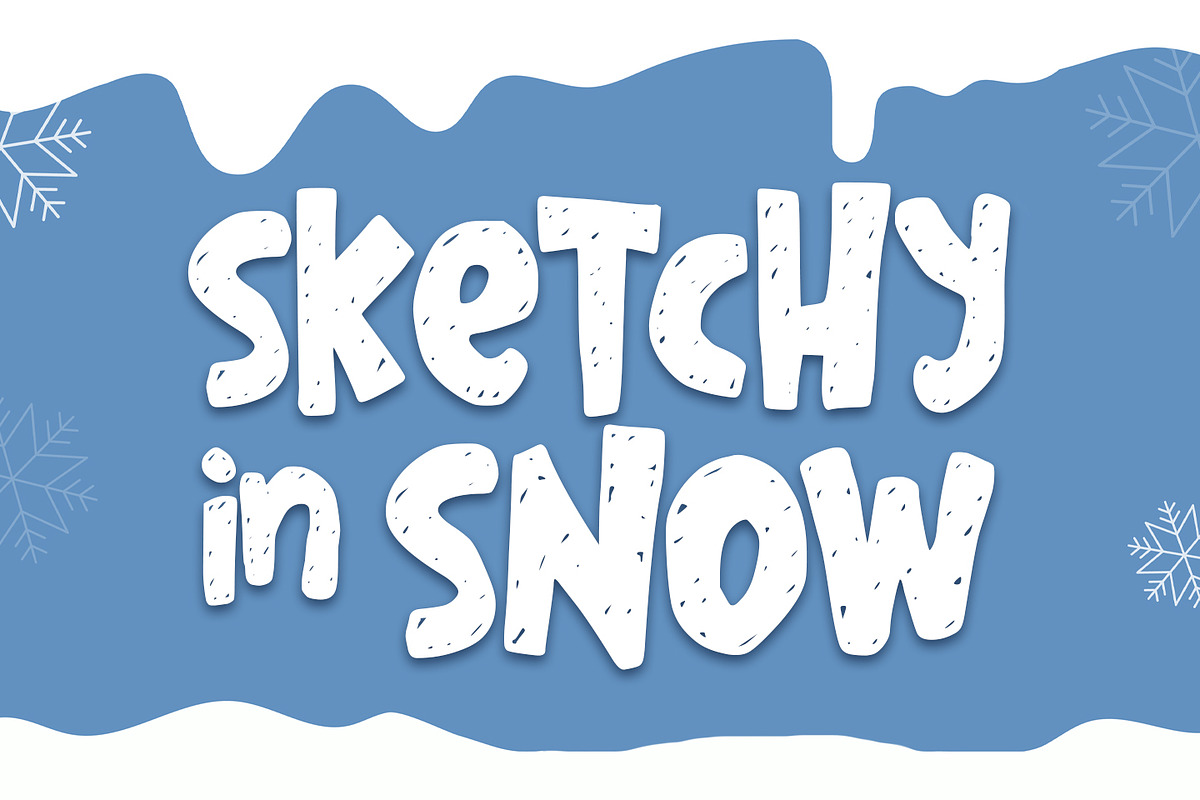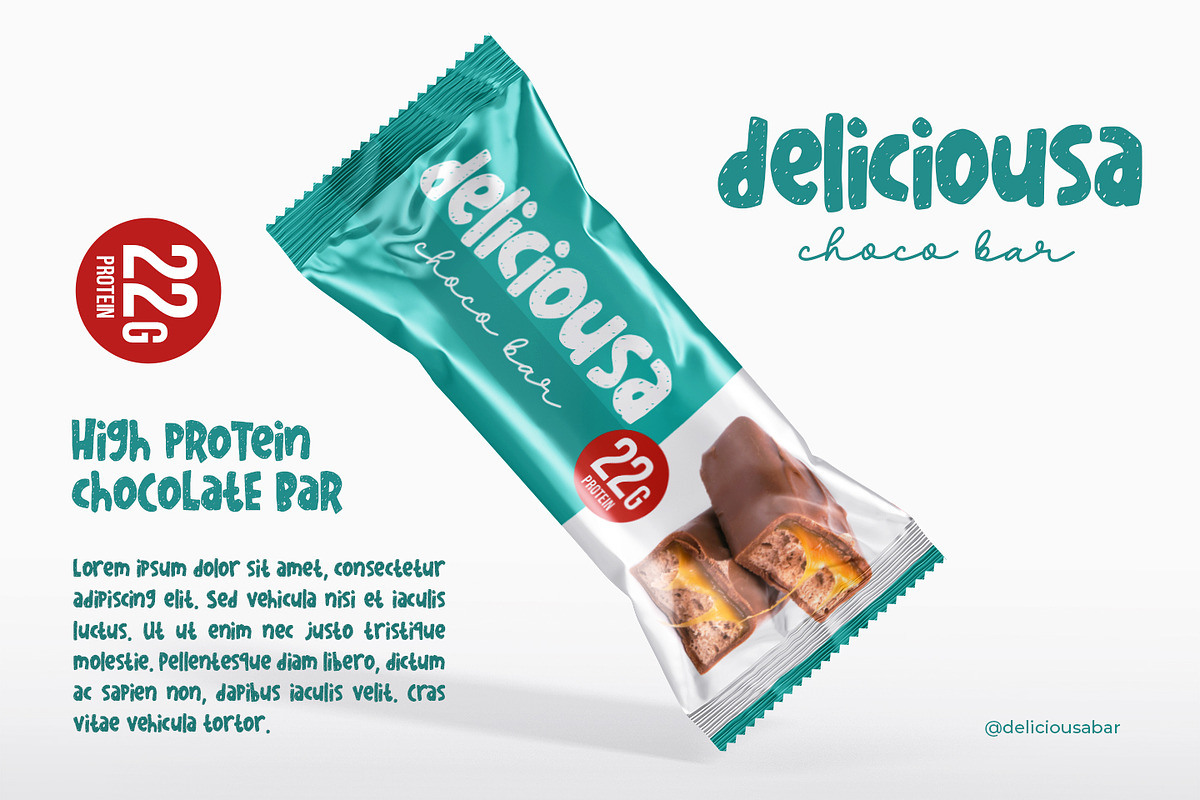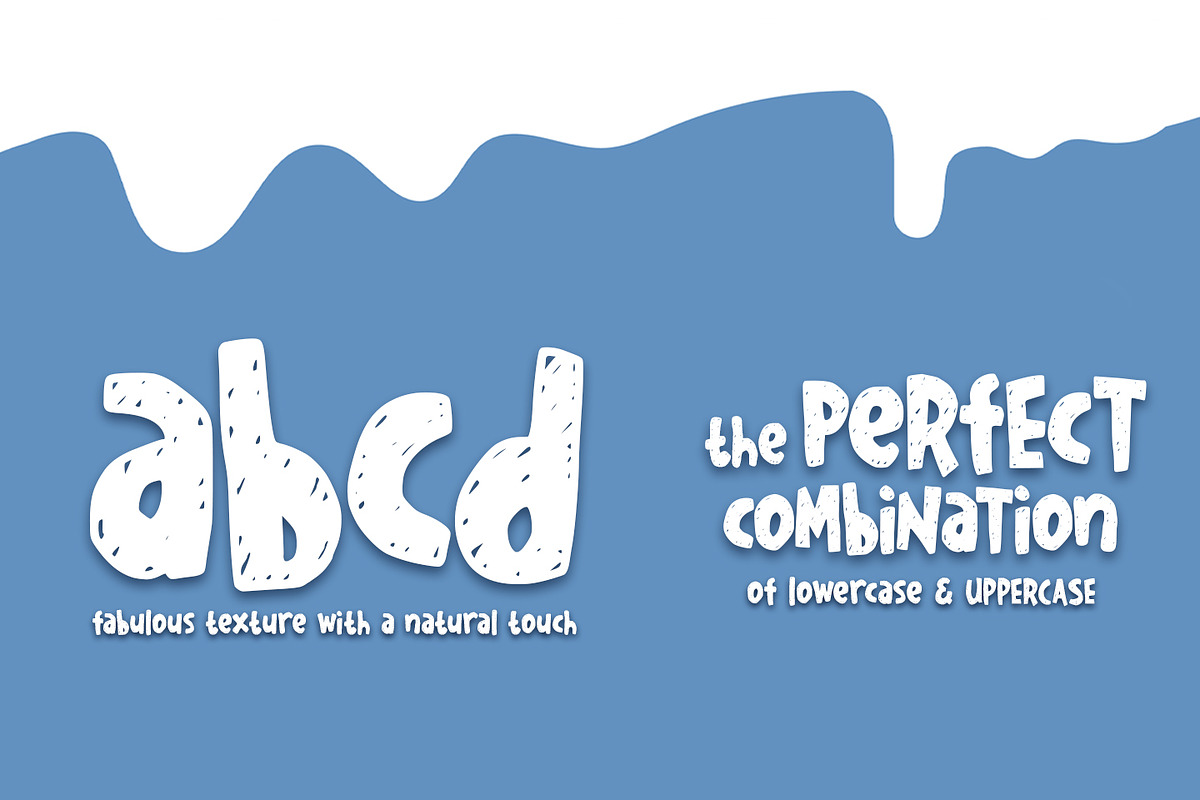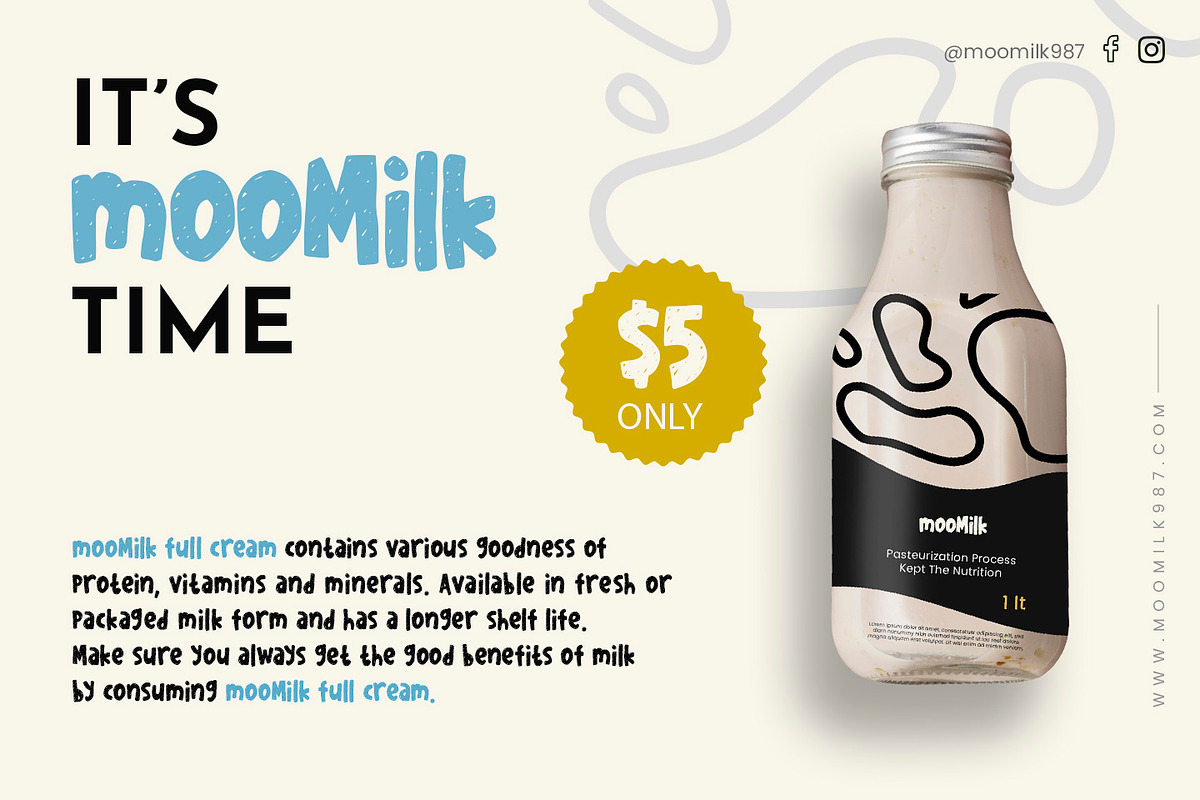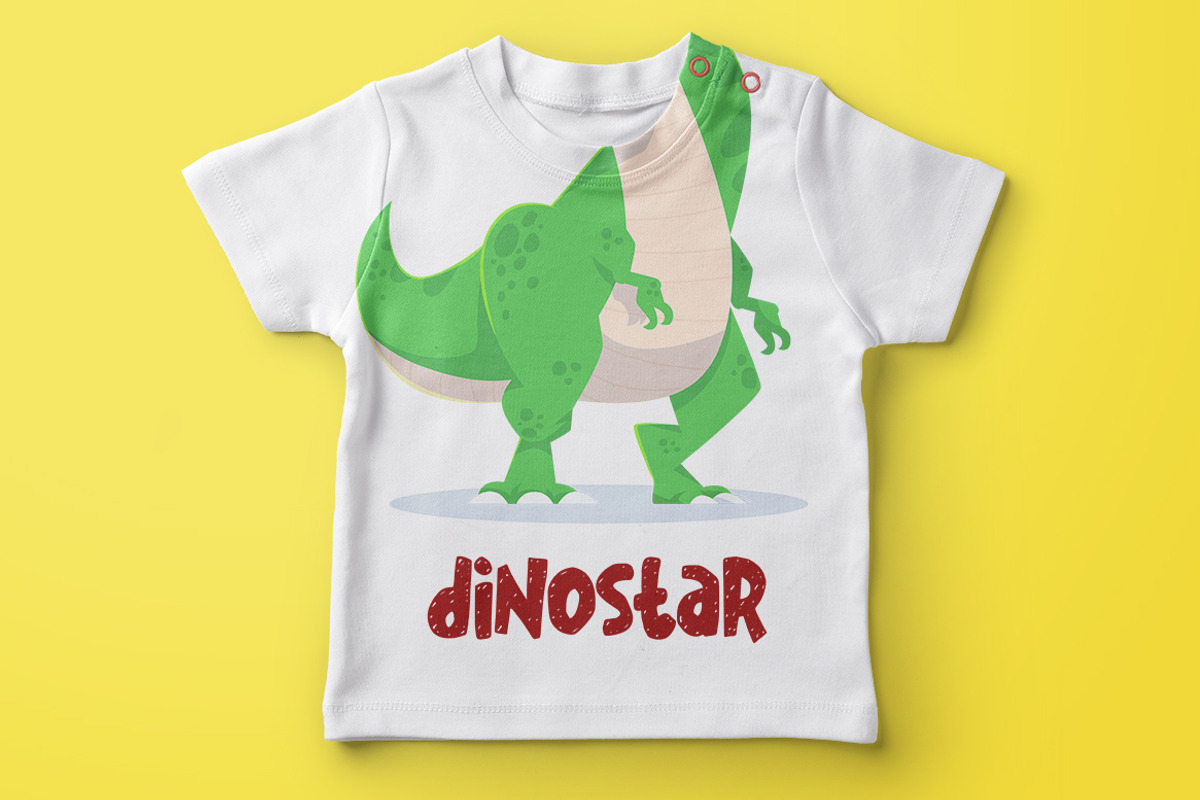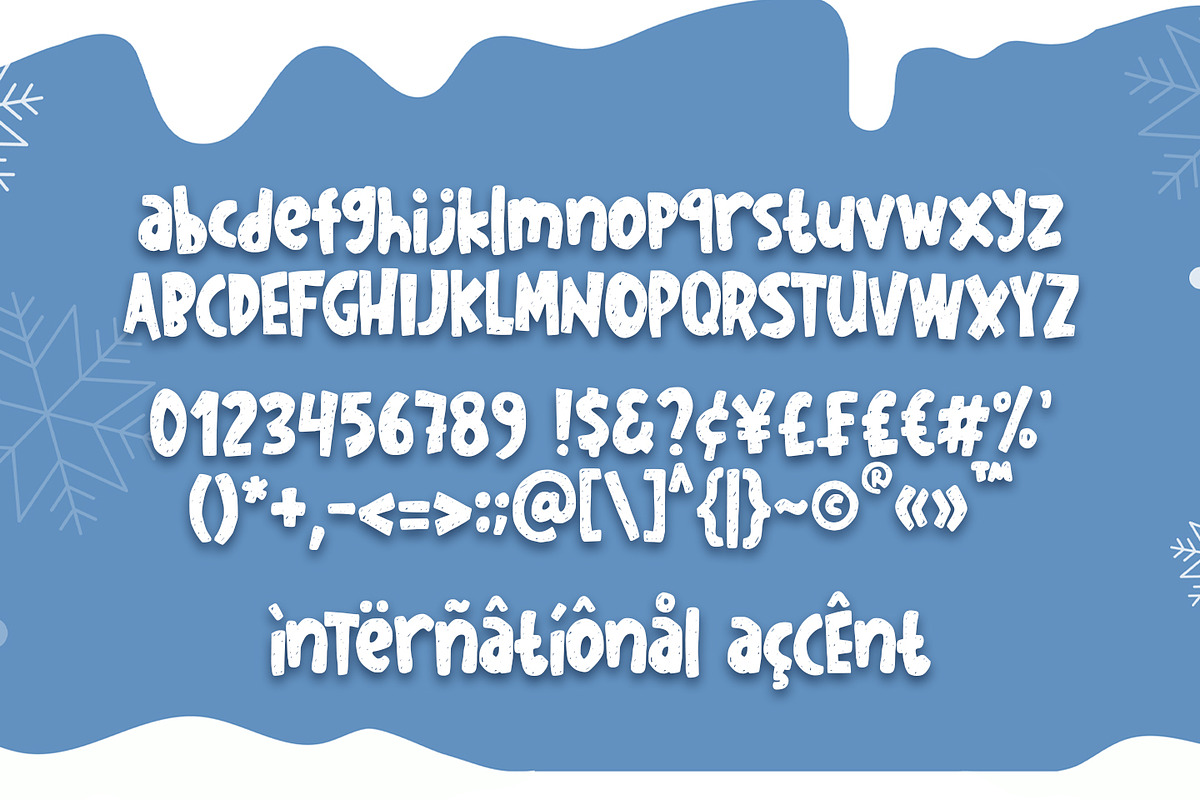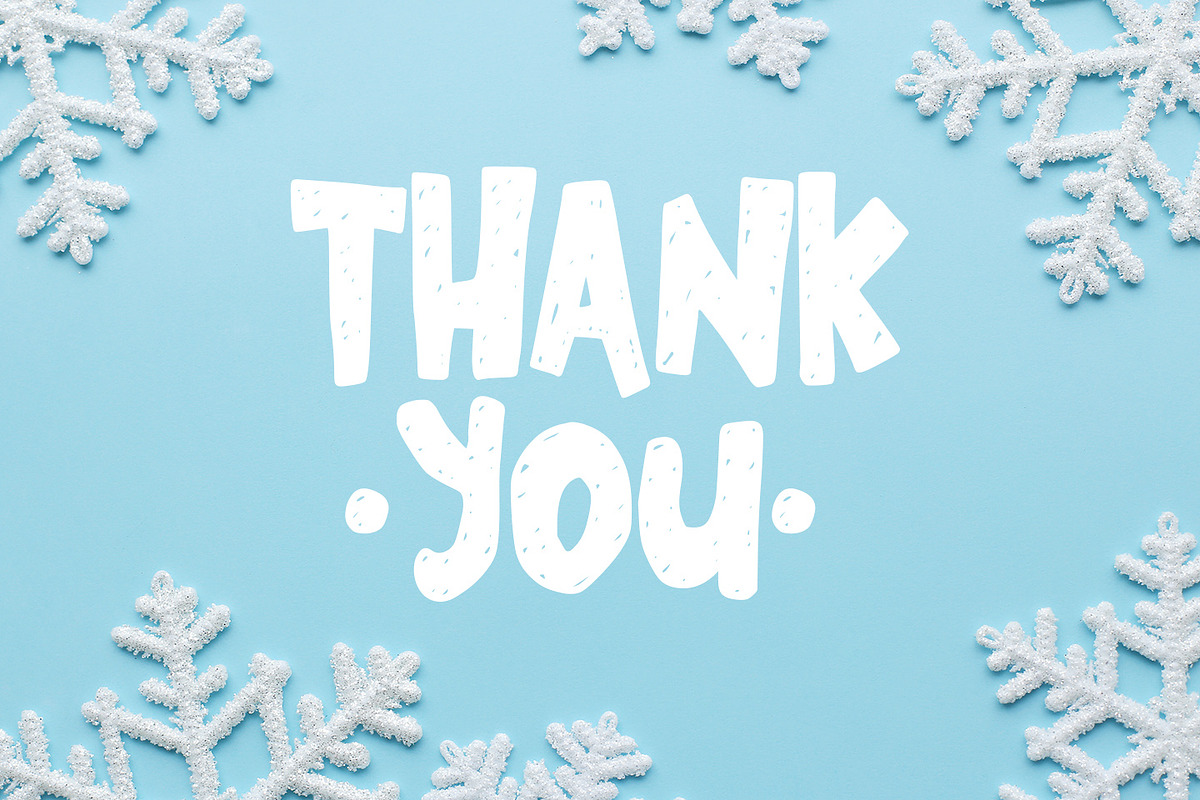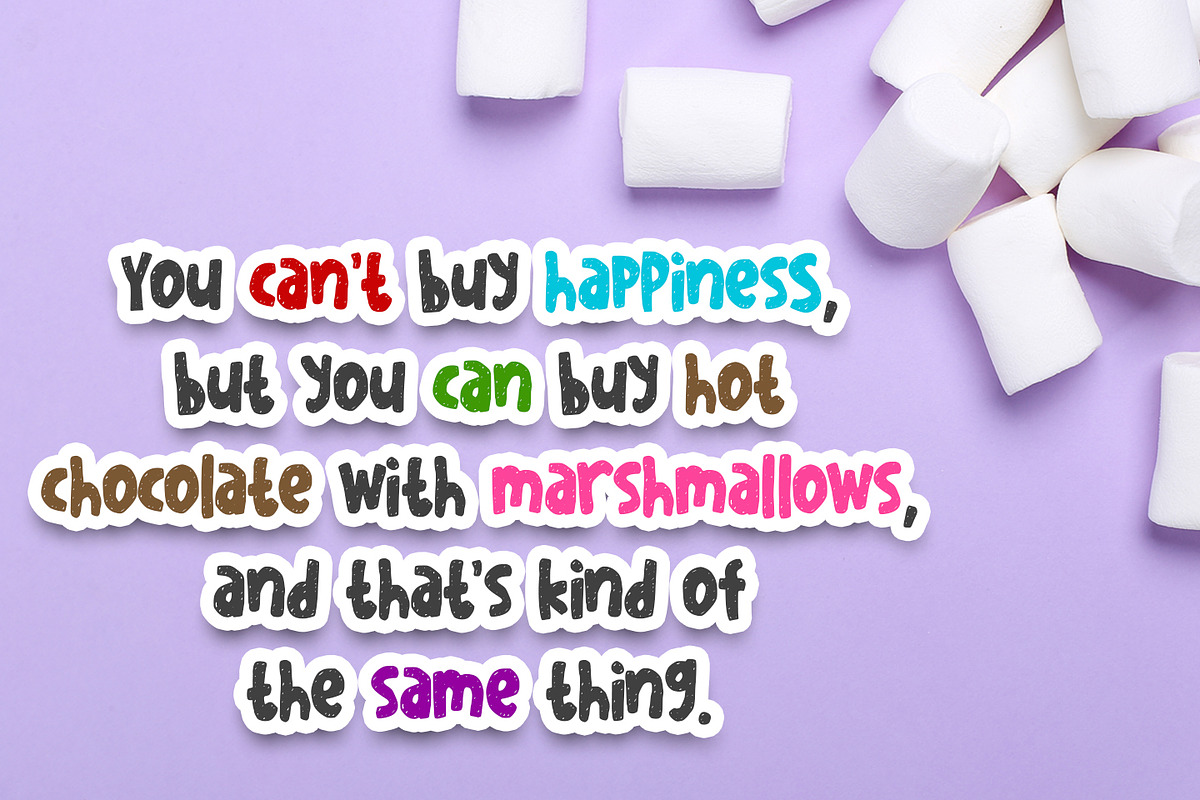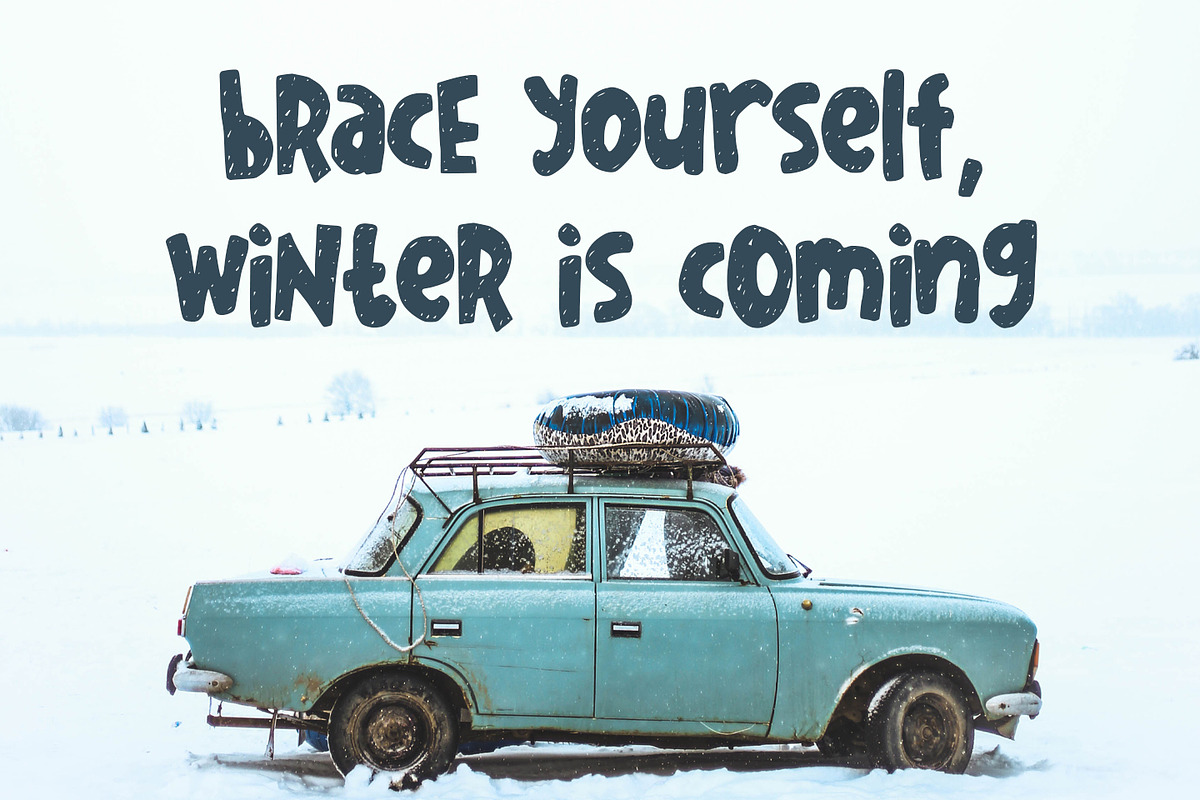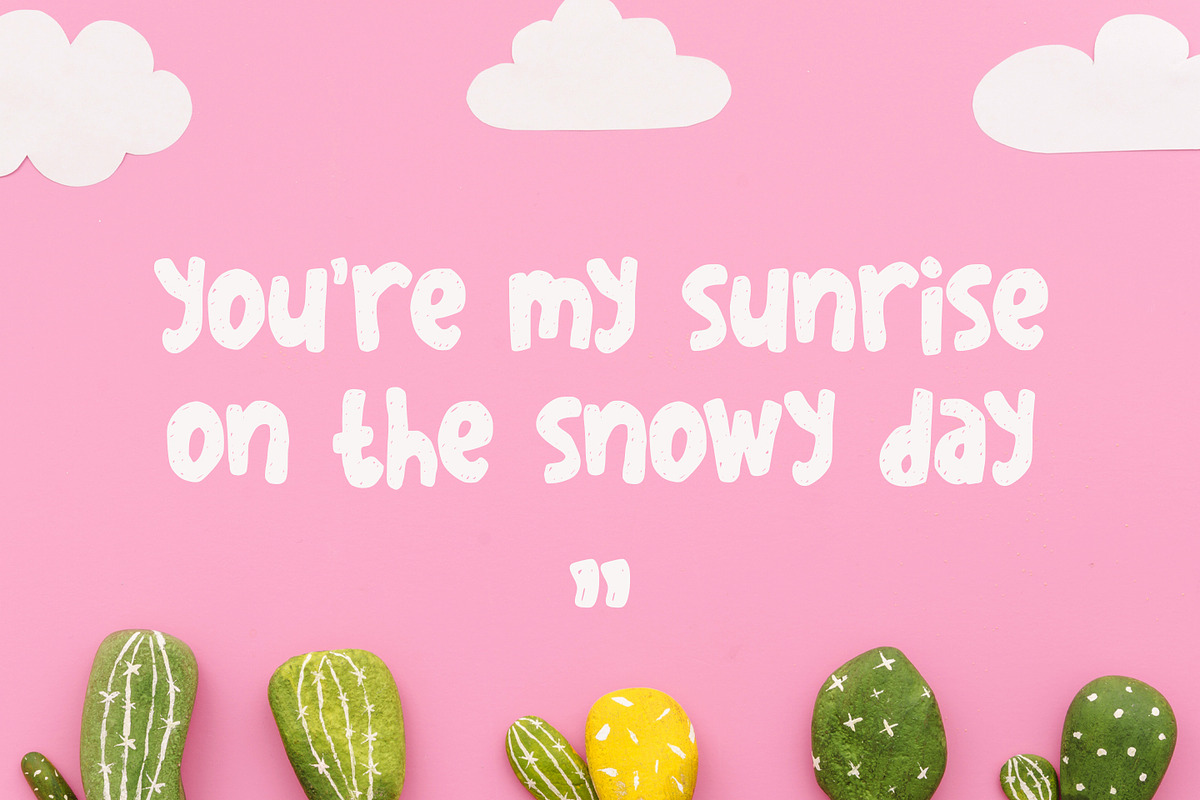
Sketchy in Snow
introducing
SKETCHY IN SNOW
-a playful winter font-
This font is designed for crafters with a snowy style.
It is great for branding, packaging, quotes, t-shirt design, cards, banners, and anything of craft project that needs a kid's style.
The combination of uppercase and lowercase is great, unique, and very fun. The uppercase and lowercase are matched. You can combine them as you like.
Lowercase
Numeral